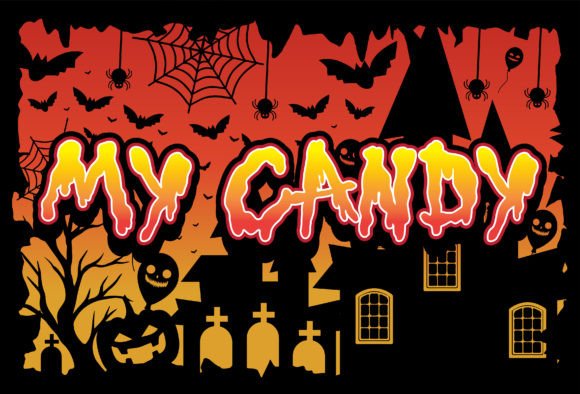
Immerse yourself in the chilling realm of horror and awaken your senses with My Candy Font, a display font that dances on the precipice of fear and fascination. Inspired by the gruesome essence of gore, this font is a masterpiece of darkness, designed to send shivers down your spine and captivate your imagination.
As you gaze upon My Candy Font, you'll feel the eerie pulse of the macabre coursing through your veins. Its sharp, jagged edges evoke the chilling atmosphere of haunted houses and the unsettling tension of midnight horror movies, making it the perfect design element for projects that demand a touch of dread and intrigue.
With My Candy Font, the ambiance of horror is not merely an aesthetic; it's an experience that permeates every aspect of its usage. Whether you're crafting bone-chilling invitations for Halloween soirées or designing haunting postcards that hint at unspeakable tales, this font has the power to transport your audience into a realm where nightmares and fantasies intertwine.
Imagine the spine-tingling posters for Halloween events, adorned with the menacing letters of My Candy Font. Its eerie charm will draw spectators in, stirring a mix of curiosity and trepidation as they anticipate the chilling delights that await them. The headlines and titles created with this font will command attention, promising an unforgettable experience that lingers long after the event has passed.
My Candy Font is not just a collection of letters; it's a gateway to a world where darkness reigns supreme. Unleash its potential, and let your creativity run wild as you embark on a journey into the depths of horror, where the boundaries between reality and imagination blur. Embrace the allure of the macabre and watch as your designs take on a life of their own, captivating audiences and leaving them spellbound.